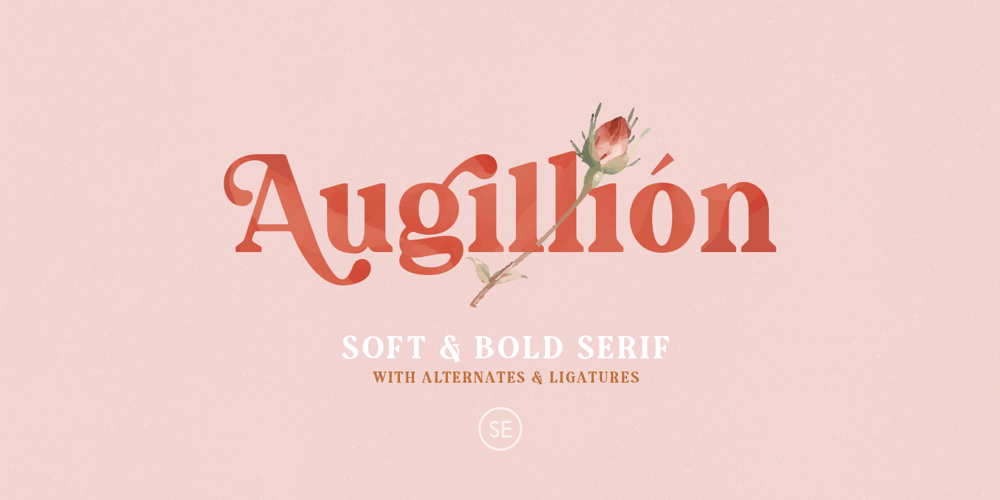
Augillion Font Family was designed by Sarid Ezra and published by Sarid Ezra. Augillion contains 1 styles and family package options. Introducing, new bold serif, Augillion – a soft bold serif with ligatures and alternates!Augillion is a modern and bold serif with a bunch of ligatures and alternates that will make your presentation or logo even more stunning and stand out! Augillion also support Multi Language. and already PUA Encoded! Including a special character “✦”, just type A+ to access it!Features Uppercase & Lowercase Number & Symbol Multi language Ligatures Alternates for each characters PUA Encoded